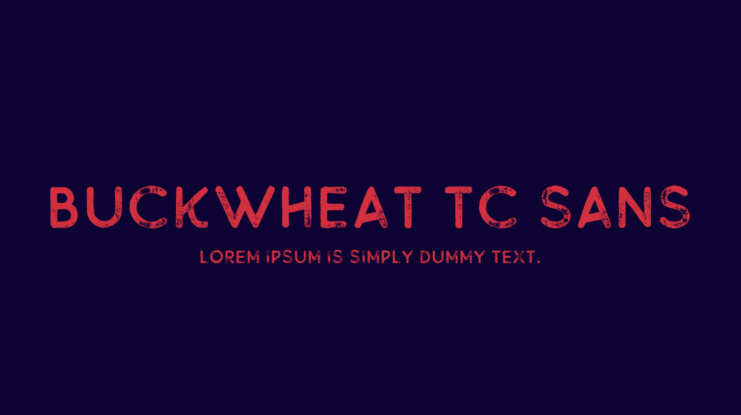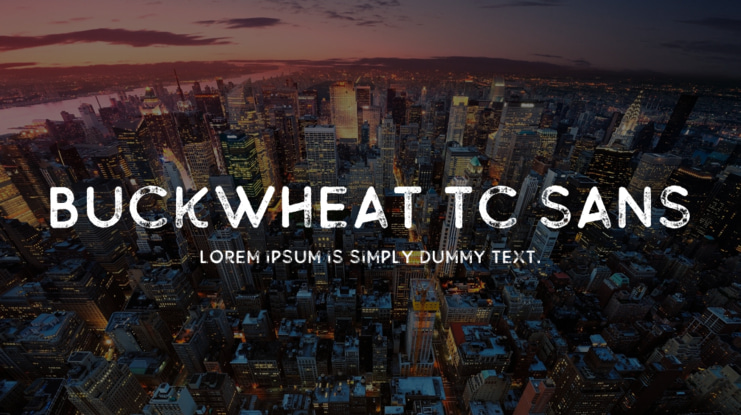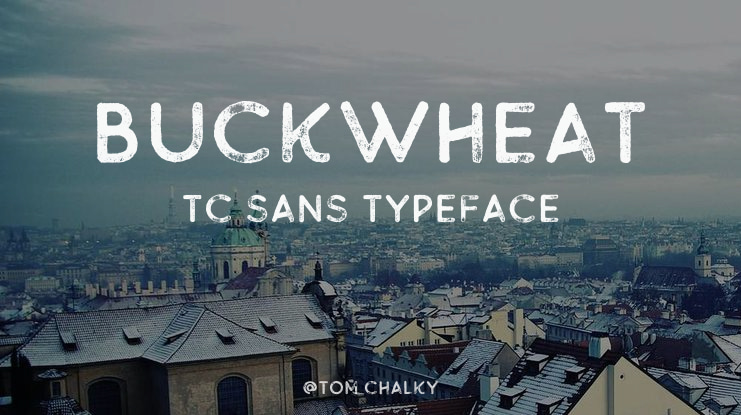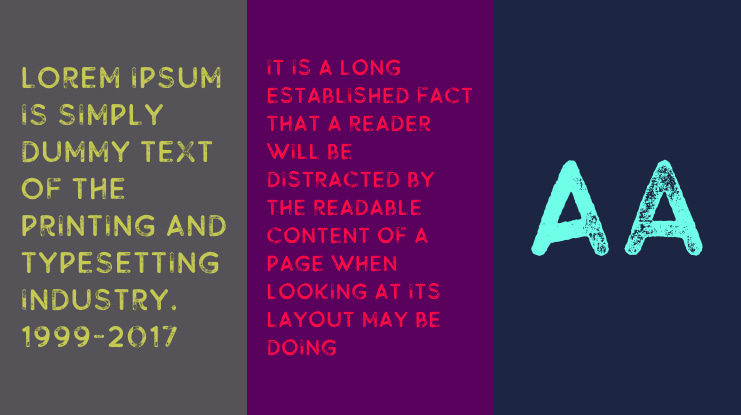
Buckwheat TC Sans Font
A free-for-personal-use distressed sans-serif font inspired by the late 1800s.
Buckwheat TC Sans: A rounded sans-serif font with several stylistic alternatives for various capitals (A, B, G, H, J, K, P, and R).